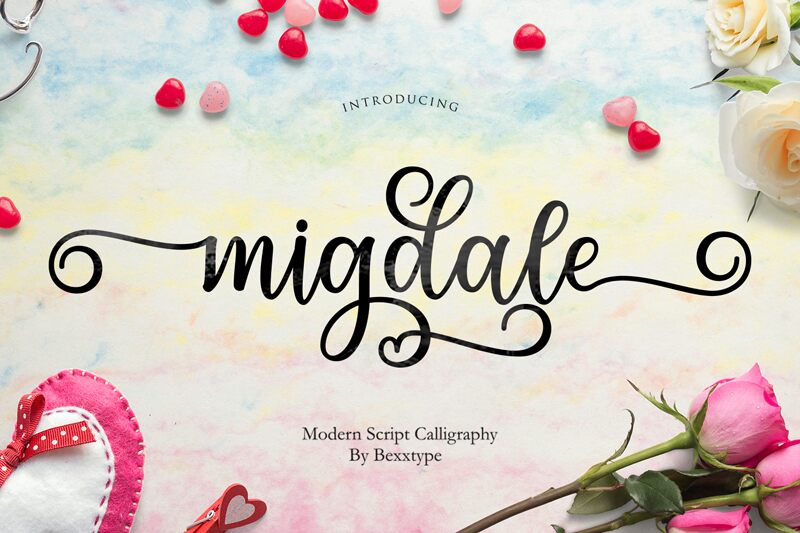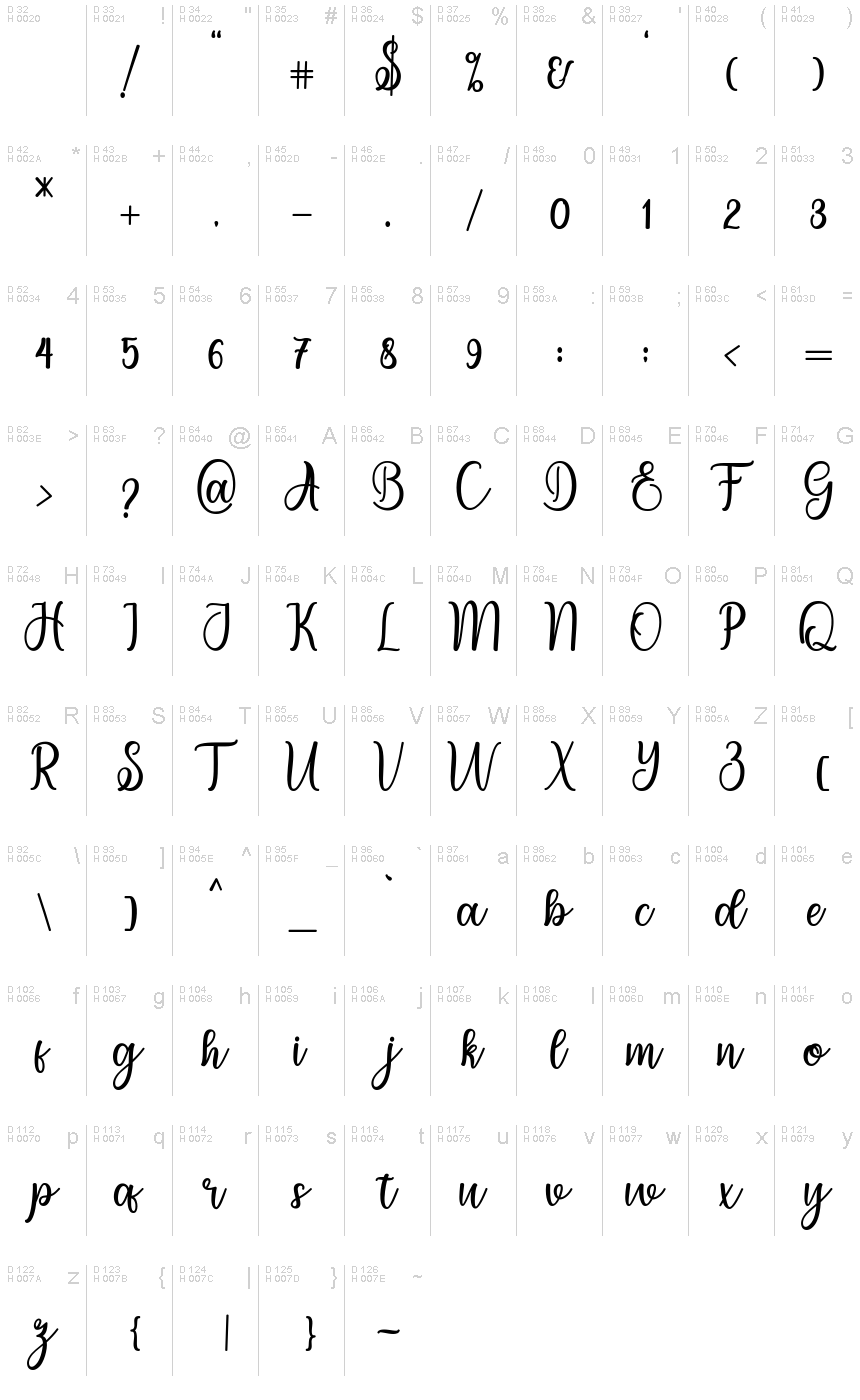
Migdale is a captivating calligraphy font that exudes elegance and sophistication. Its sweeping, fluid strokes create a sense of graceful movement, making it an ideal choice for a variety of design applications.
From elegant wedding invitations to chic branding materials, Migdale's aesthetic appeal lends itself to a wide range of creative projects. The font's refined, yet playful, character adds a touch of refinement and personality, making it a versatile tool for designers seeking to craft visually striking and memorable pieces.